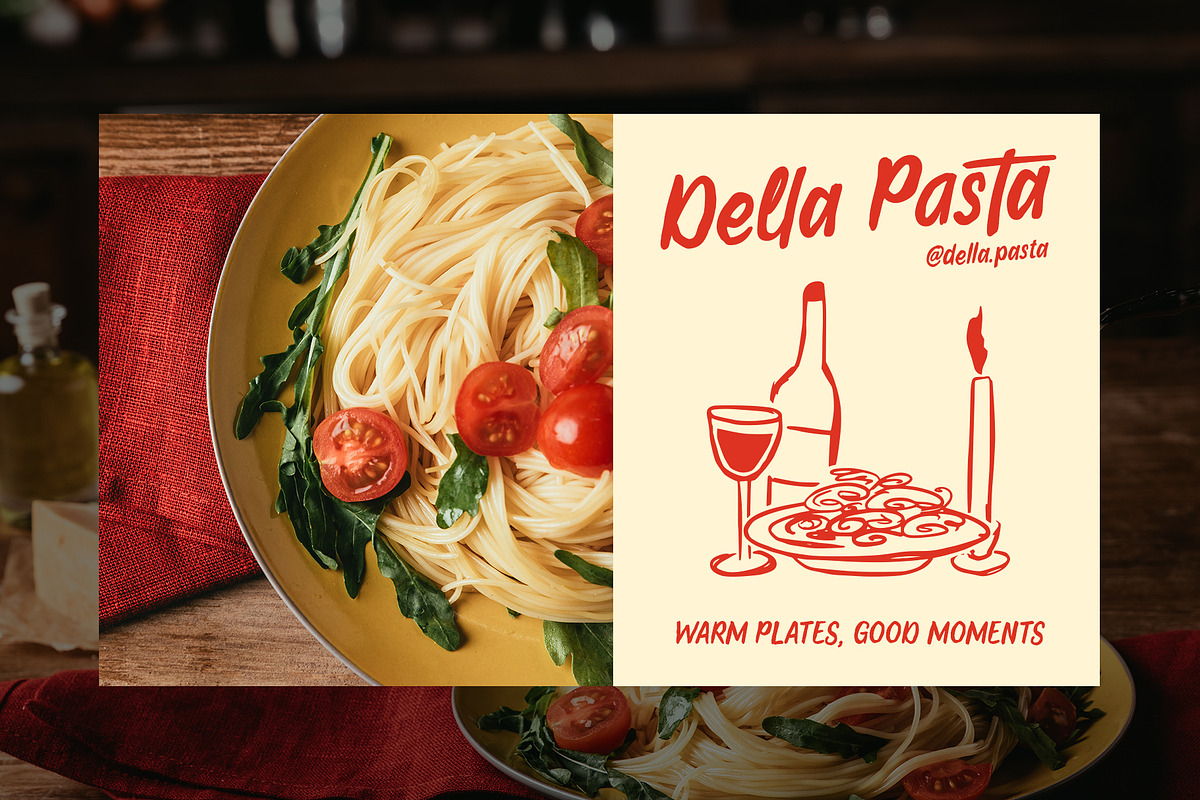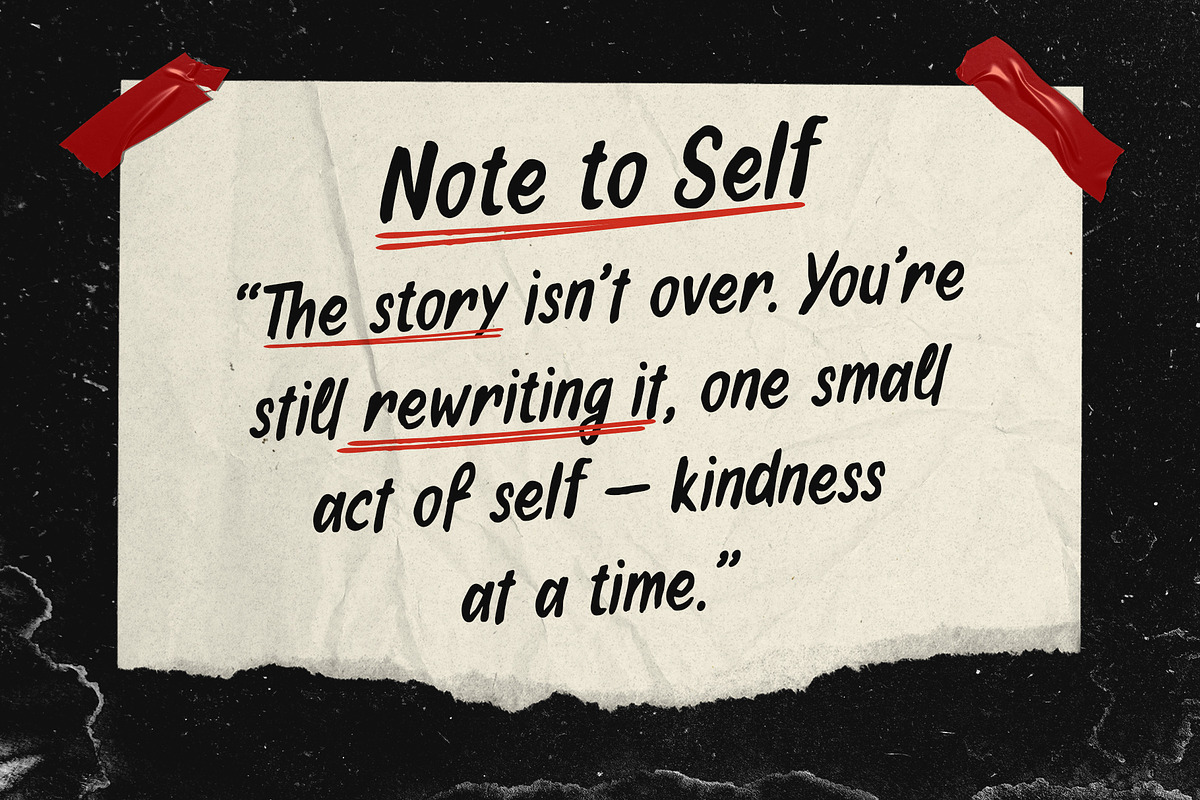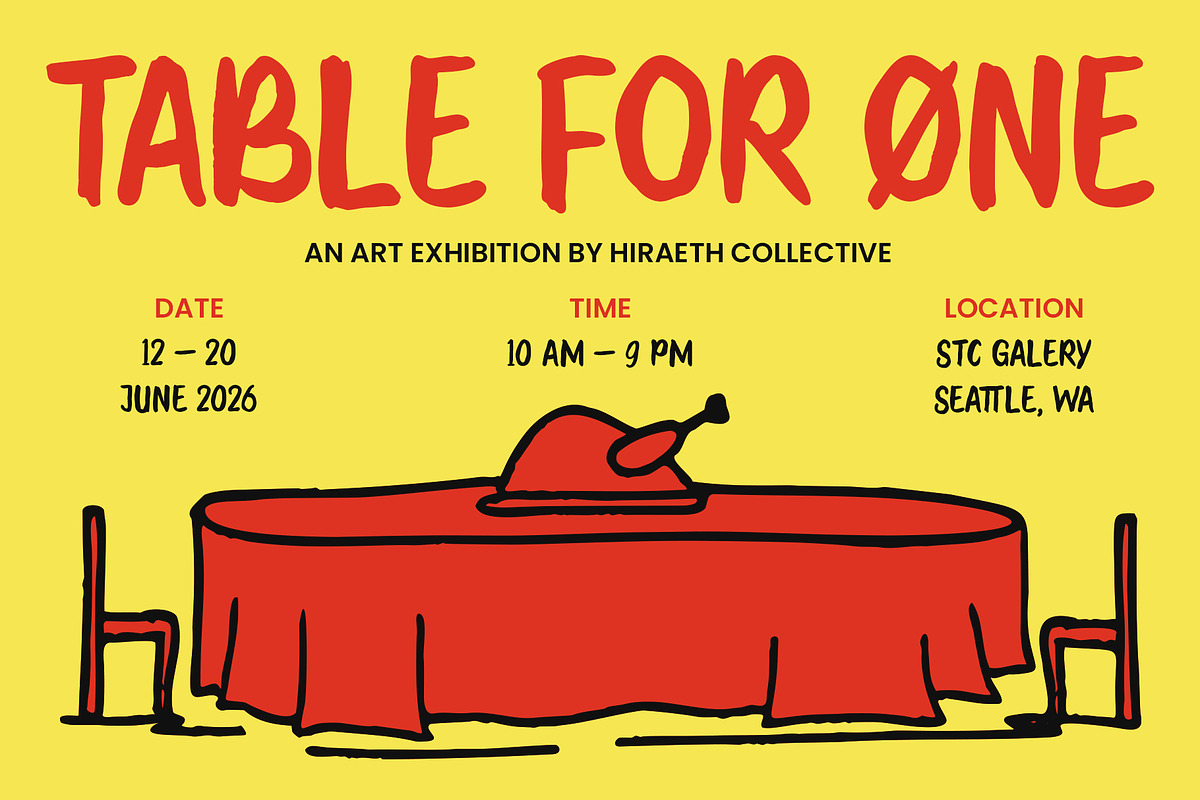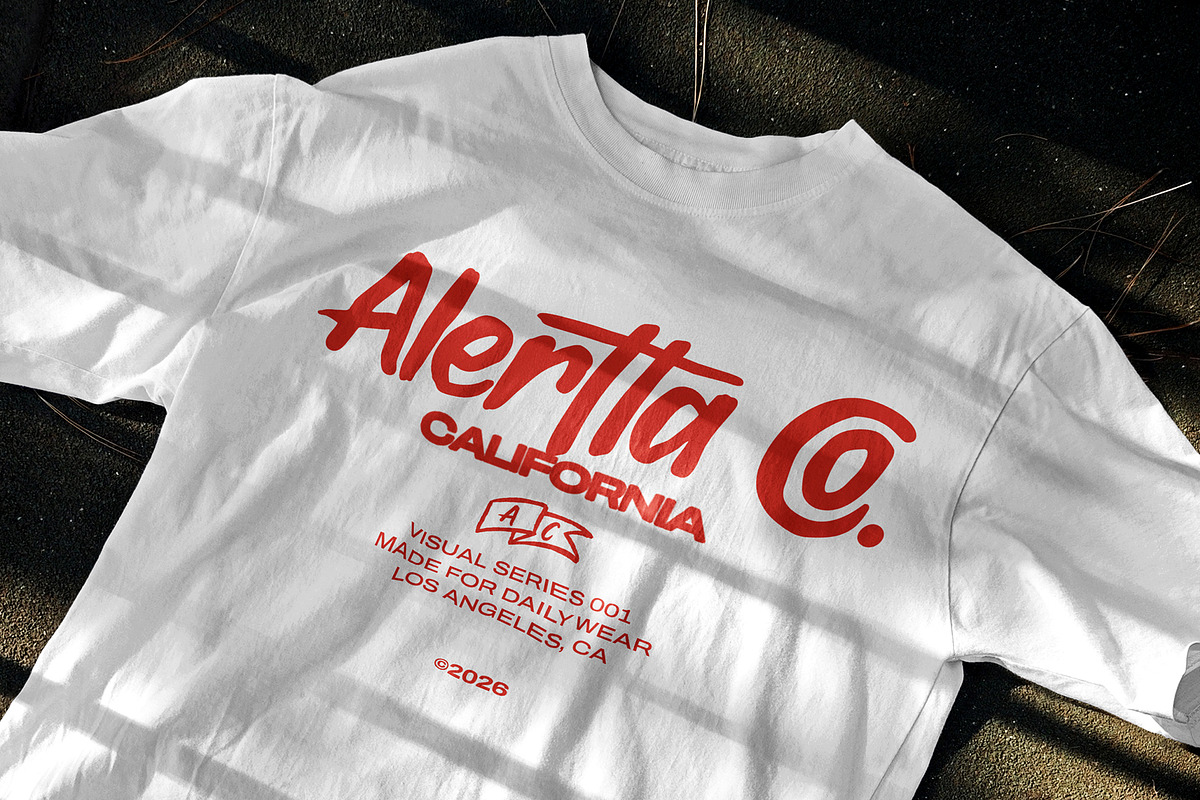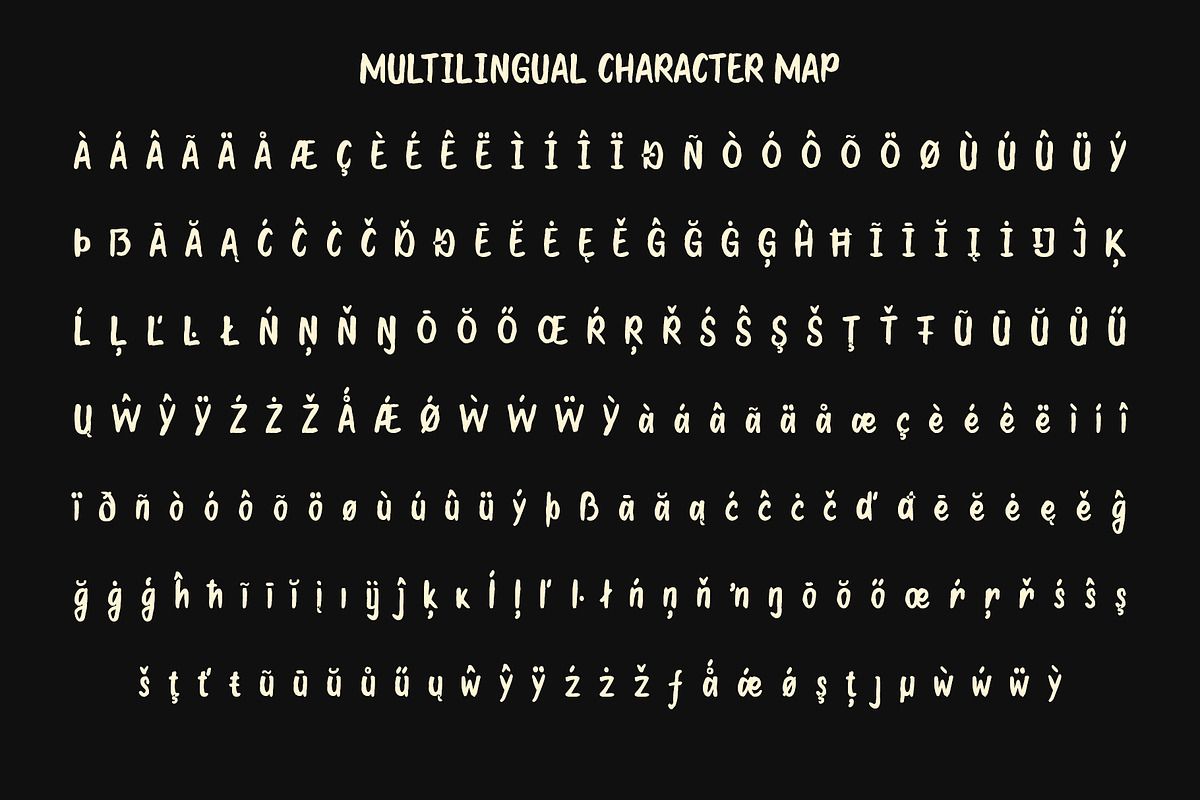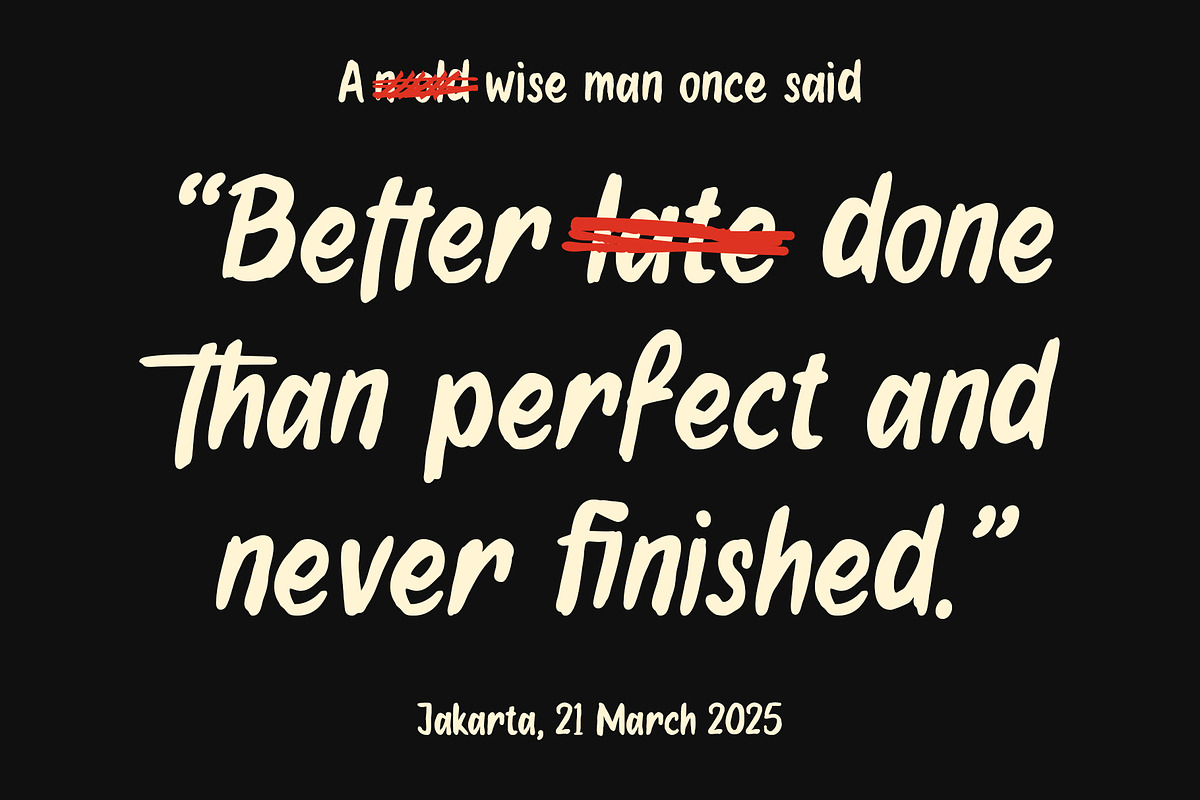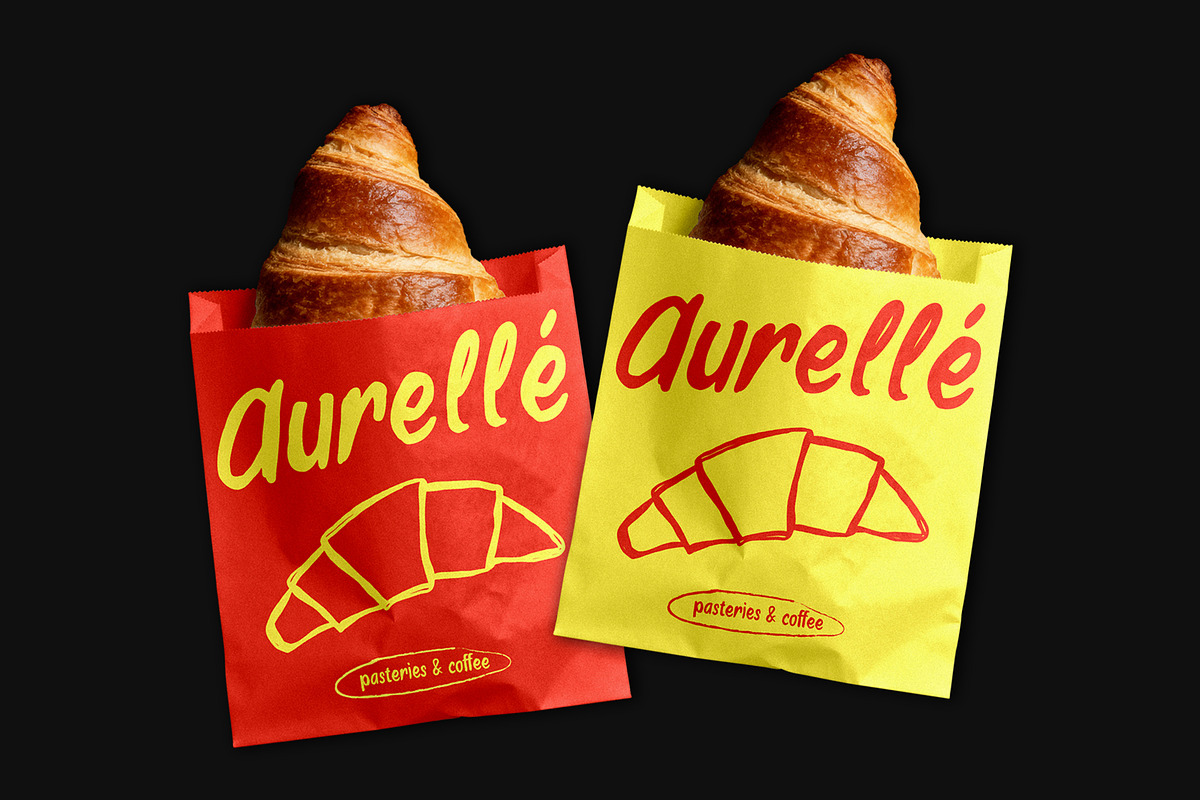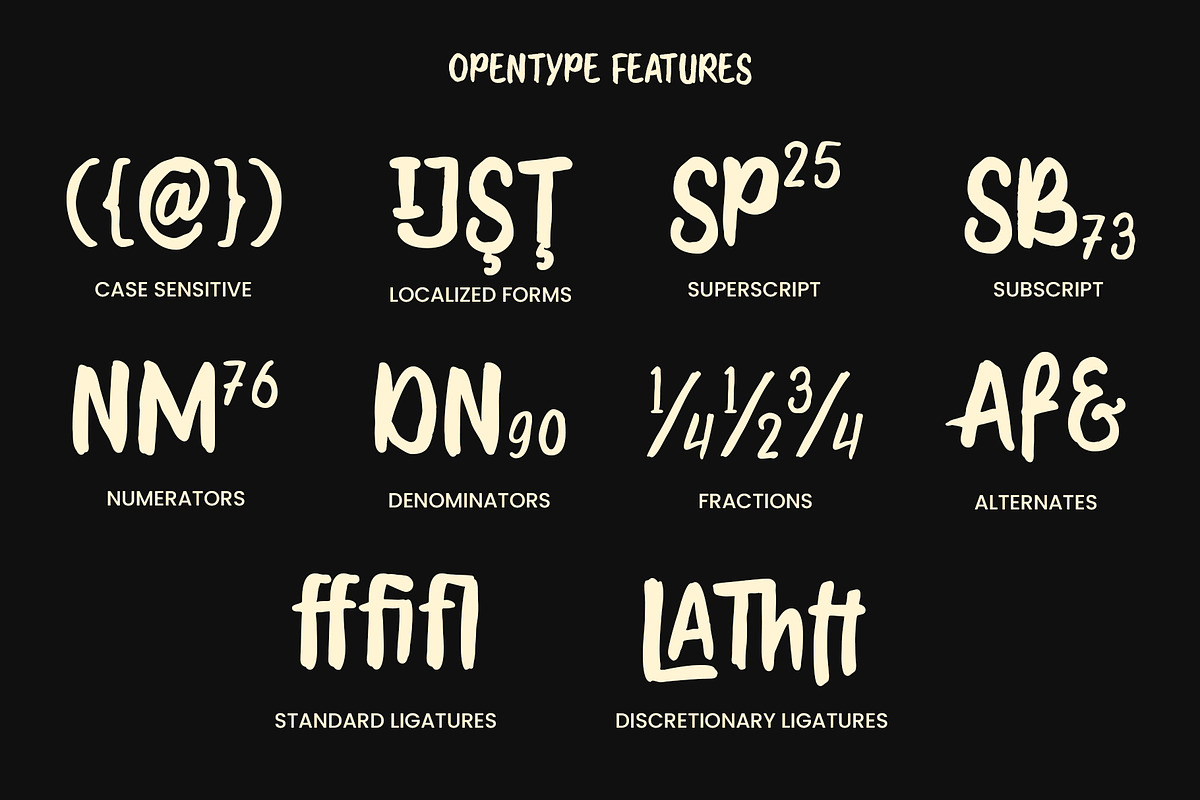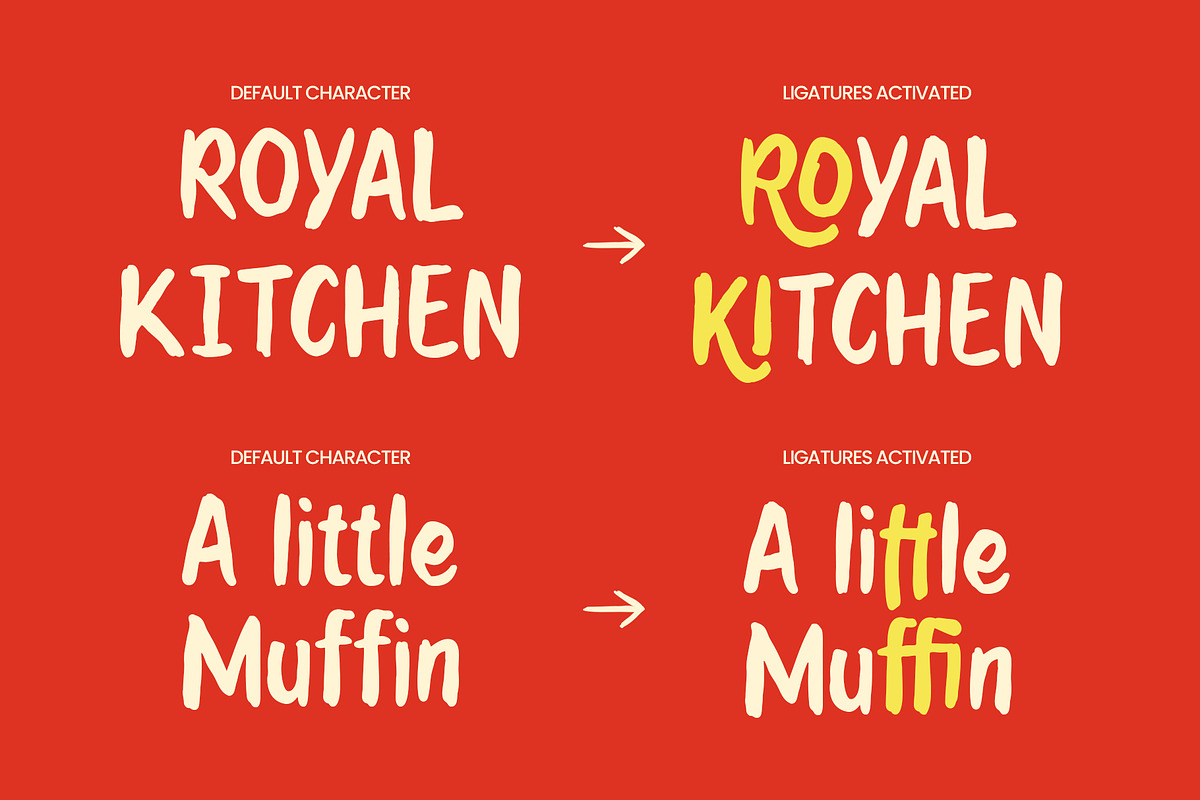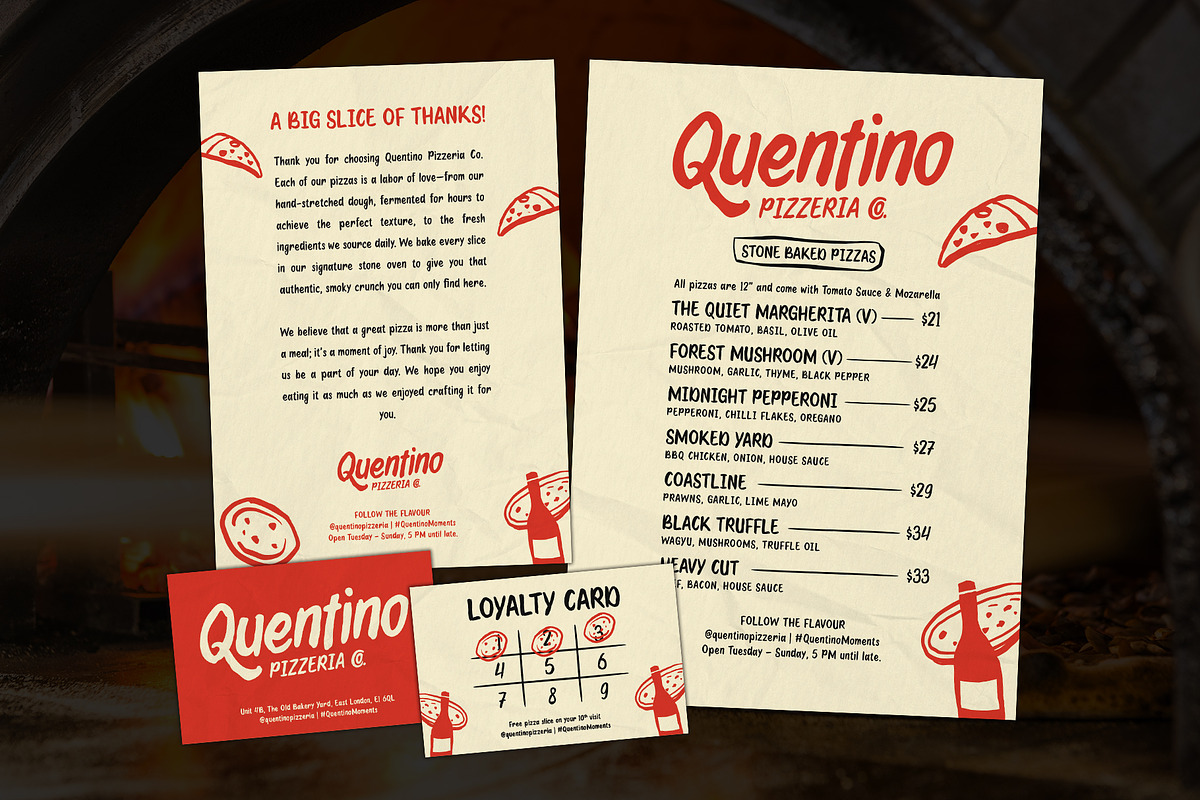
Reotta - Imperfect Hand Drawn Font
Reotta is a hand-drawn font that celebrates the honesty of every stroke. Inspired by free and personal expression, this font presents itself as it is—raw, expressive, and beautifully imperfect. Each letter carries a unique personal character, making it the perfect choice for design projects that require a warm, human touch with a strong presence.
Extensive glyph set including uppercase, lowercase, numerals, punctuation, and symbols (516 glyphs).
Stylistic alternates and ligatures for controlled variation across wordmarks and titles.
Multilingual support covering a wide range of international languages.